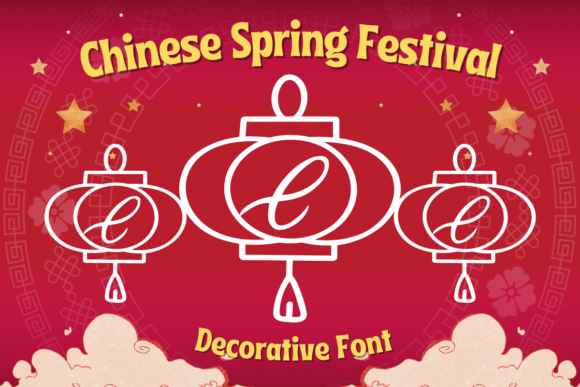
Chinese Spring Festival Font: A Decorative Font for Celebratory Designs
The Chinese Spring Festival, also known as the Spring Festival or Chunjie, is a significant holiday in China and other countries with Chinese communities. The festival typically falls between late January and early February, marking the beginning of the new year on the traditional Chinese calendar. To add a festive touch to your designs, you can use a Chinese Spring Festival font, a decorative font that captures the spirit of the celebration.
What is a Chinese Spring Festival Font?
A Chinese Spring Festival font is a type of decorative font designed to resemble the calligraphy and handwriting often used during the Chinese Spring Festival. The font typically features bold, colorful, and playful designs, with intricate patterns and ornaments that reflect the festive atmosphere of the holiday. The font can be used for various design projects, such as taking notes, writing in a diary, or creating greeting cards.
Uses of Chinese Spring Festival Font
The Chinese Spring Festival font is a versatile design element that can be used in a wide range of applications. Here are some ideas:
- Notes and Diary: Add a festive touch to your notes and diary entries with the Chinese Spring Festival font. You can use it to write down your goals, resolutions, or simply to decorate your journal pages.
- Greeting Cards: Create beautiful and unique greeting cards for friends and family using the Chinese Spring Festival font. You can add personalized messages, decorate with images, and print them on cardstock or paper.
- Banners and Posters: Use the Chinese Spring Festival font to create eye-catching banners and posters for events, parties, or promotions. You can customize the font size, color, and style to fit your design needs.
- Social Media Posts: Add a festive touch to your social media posts using the Chinese Spring Festival font. You can create engaging posts, stories, and reels that showcase your creativity and holiday spirit.
- Mugs, Cards, and Shirts: Use the Chinese Spring Festival font to create custom designs for mugs, cards, and shirts. You can add fun and colorful graphics, patterns, and text to make unique gifts or promotional items.
- Stationery and Paper Crafts: Incorporate the Chinese Spring Festival font into your stationery and paper crafts, such as letterheads, invitations, and scrapbook pages.
Benefits of Using a Chinese Spring Festival Font
Using a Chinese Spring Festival font can bring several benefits to your designs:
- Festive and Celebratory: The font adds a festive and celebratory touch to your designs, perfect for the Chinese Spring Festival and other holiday-themed projects.
- Unique and Creative: The Chinese Spring Festival font offers a unique and creative way to express yourself and showcase your personality.
- Cultural Significance: Using a font inspired by Chinese culture and traditions can add depth and meaning to your designs.
- Versatility: The font can be used in various design projects, from digital to print, and across different mediums and platforms.
Tips for Using a Chinese Spring Festival Font
Here are some tips for using a Chinese Spring Festival font effectively:
- Choose the Right Font Size: Select a font size that fits your design needs. You can use a larger font size for headings and titles, and a smaller font size for body text.
- Experiment with Colors: Try out different colors and color combinations to match your design theme and style.
- Add Graphics and Patterns: Combine the Chinese Spring Festival font with graphics, patterns, and images to create visually appealing designs.
- Keep it Simple: Don’t overdo it – keep your design simple and balanced to ensure the font remains legible and effective.
The Chinese Spring Festival font is a beautiful and festive design element that can add a touch of celebration and culture to your designs. With its bold, colorful, and playful designs, this font is perfect for various applications, from notes and diaries to greeting cards, banners, and social media posts. By following the tips and guidelines outlined in this article, you can effectively use a Chinese Spring Festival font to create unique and engaging designs that showcase your creativity and holiday spirit.